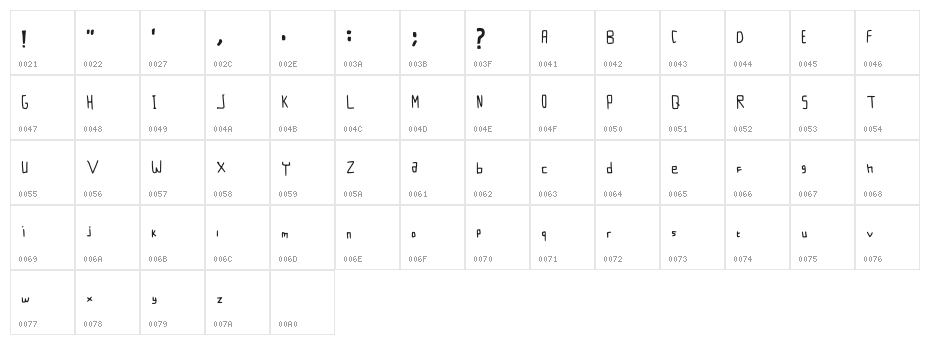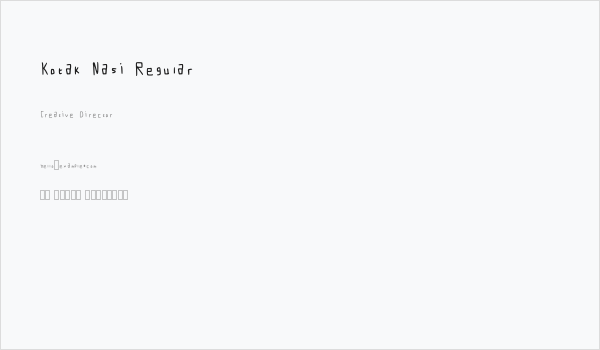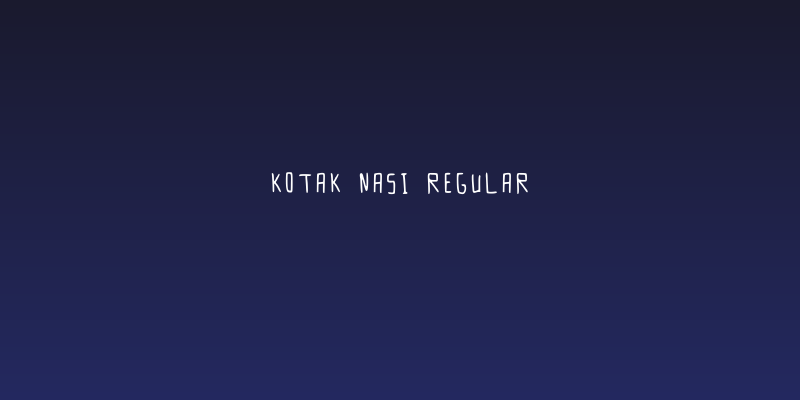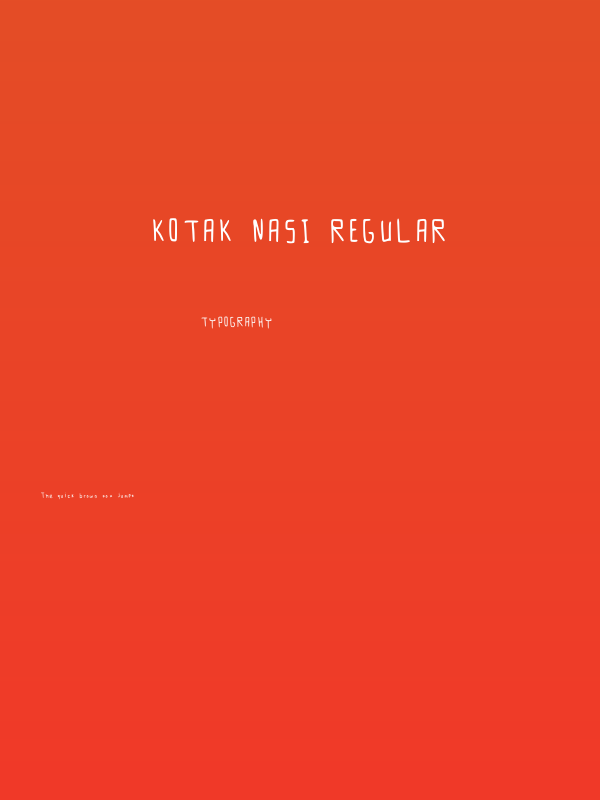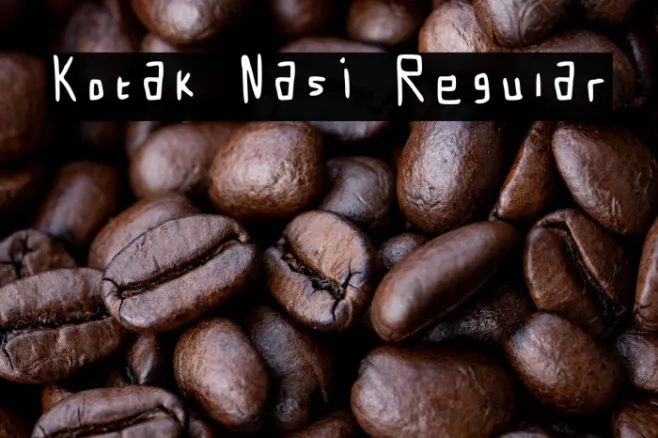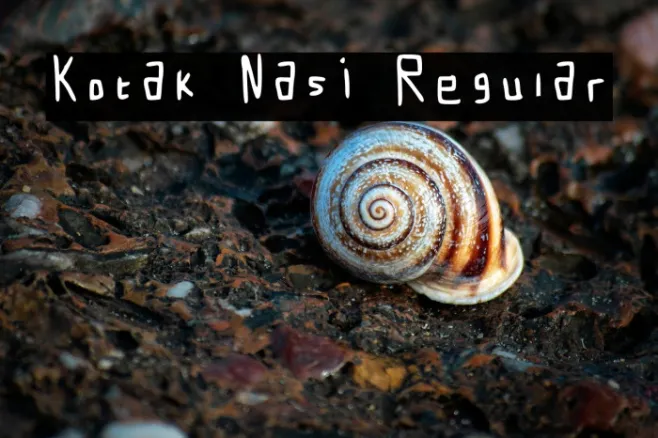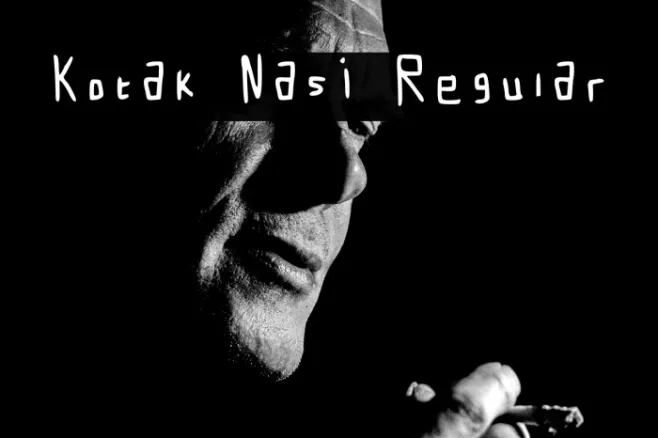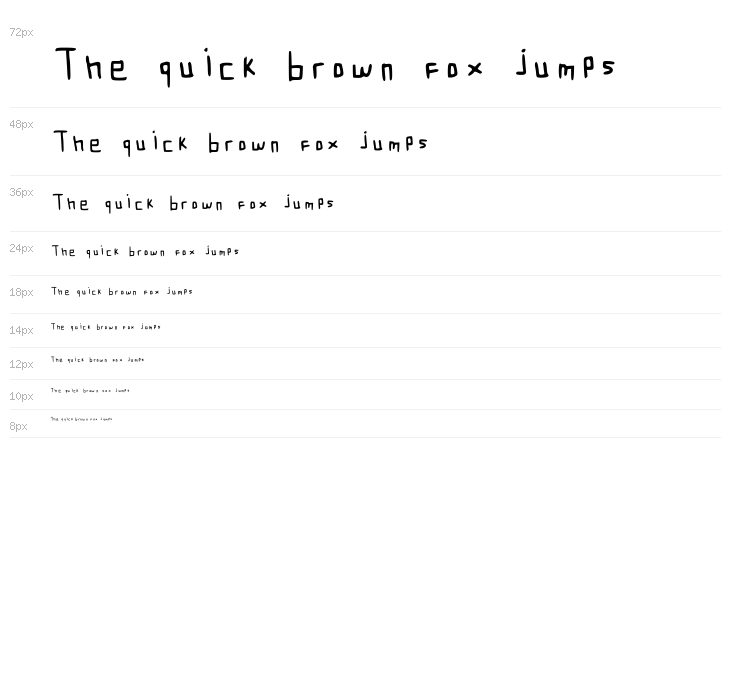
Kotak Nasi Regular Font
Kotak Nasi Regular Description
This font features a playful and quirky handwritten style, characterized by its irregular and slightly uneven letterforms. The strokes are thin and have a casual, informal appearance, giving it a friendly and approachable feel. The uppercase and lowercase letters maintain a consistent style, with a slight tilt and varying stroke lengths that add to its charm. The numerals and special characters follow the same whimsical design, making it suitable for creative and artistic projects. Its unique style makes it stand out, offering a personal touch to any text.
| Proposed Projects | Ideal for children's books, greeting cards, personal blogs, and creative branding. |